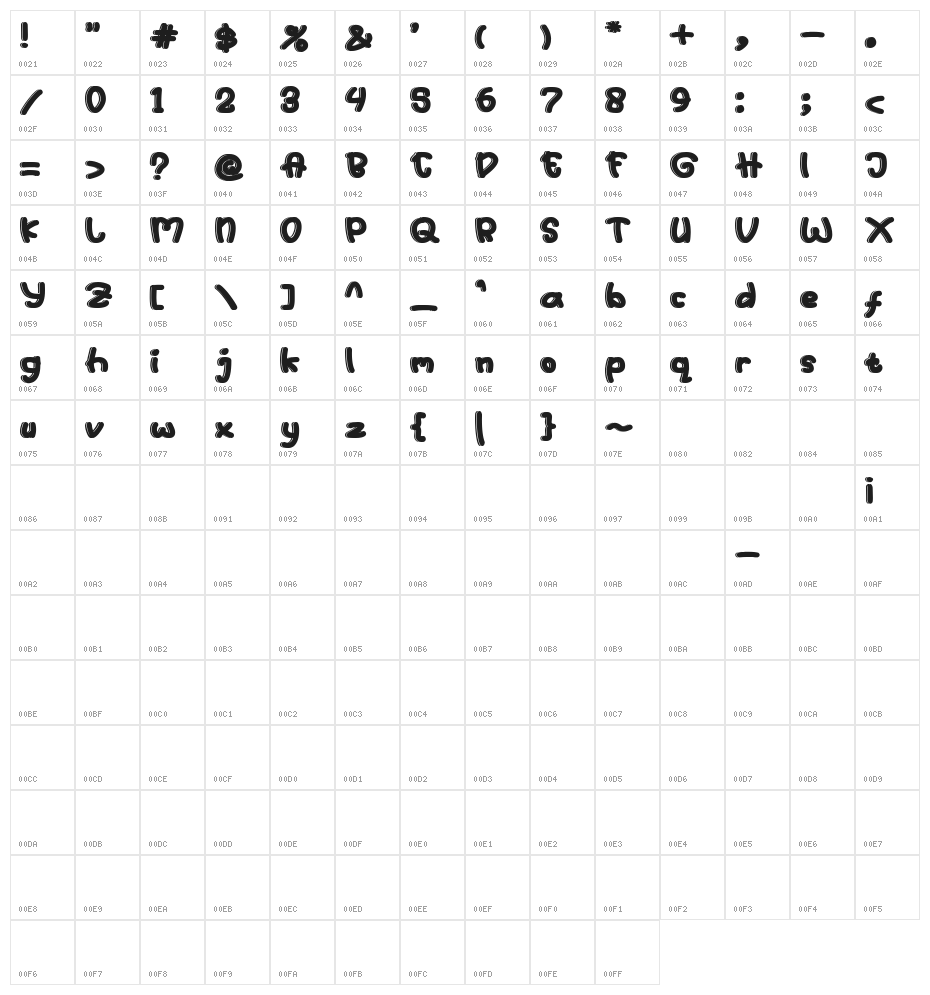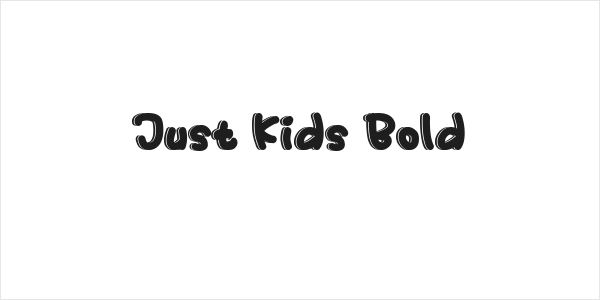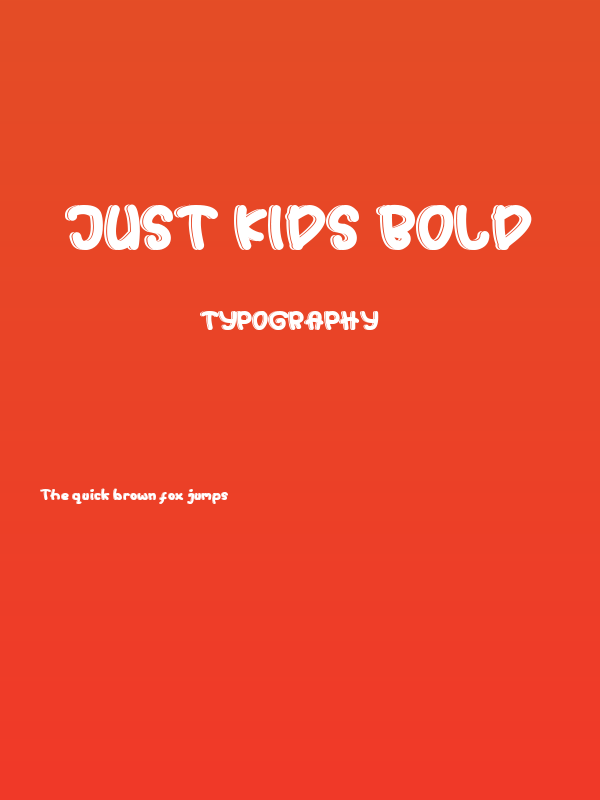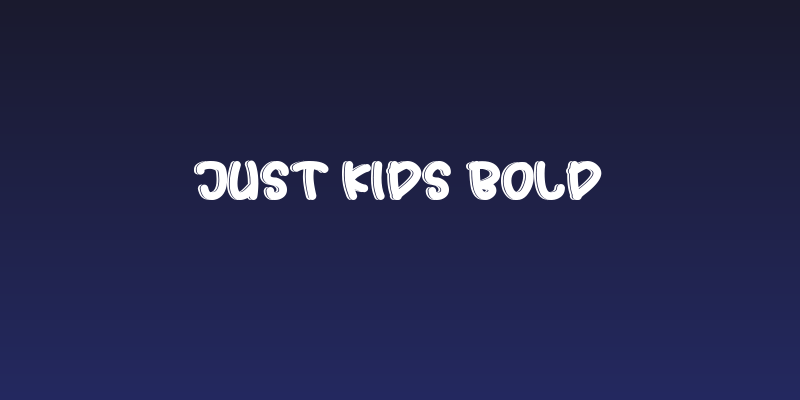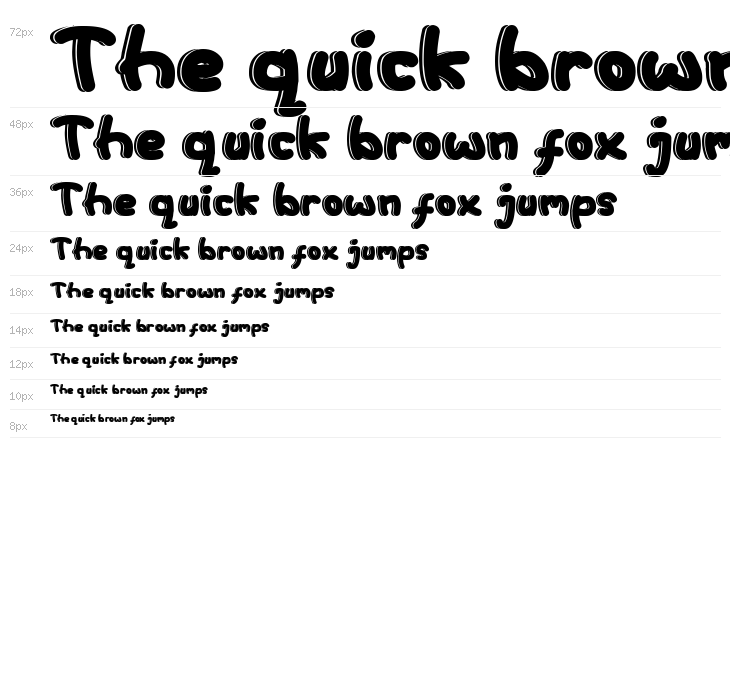
Just Kids Bold Font
Just Kids Bold Description
This playful and bold font features thick, rounded letters with a bubbly appearance, making it ideal for children's projects. The characters have a consistent stroke width, contributing to a cohesive and friendly look. The uppercase and lowercase letters maintain a uniform style, with slightly exaggerated curves and rounded edges that enhance its whimsical nature. The numerals and special characters follow the same design principles, ensuring a harmonious overall appearance. This font's boldness and unique style make it stand out, while its readability remains intact, making it suitable for various creative applications.
Overall StylePlayful
Proposed ProjectsIdeal for children's books, educational materials, playful branding, and toy packaging.